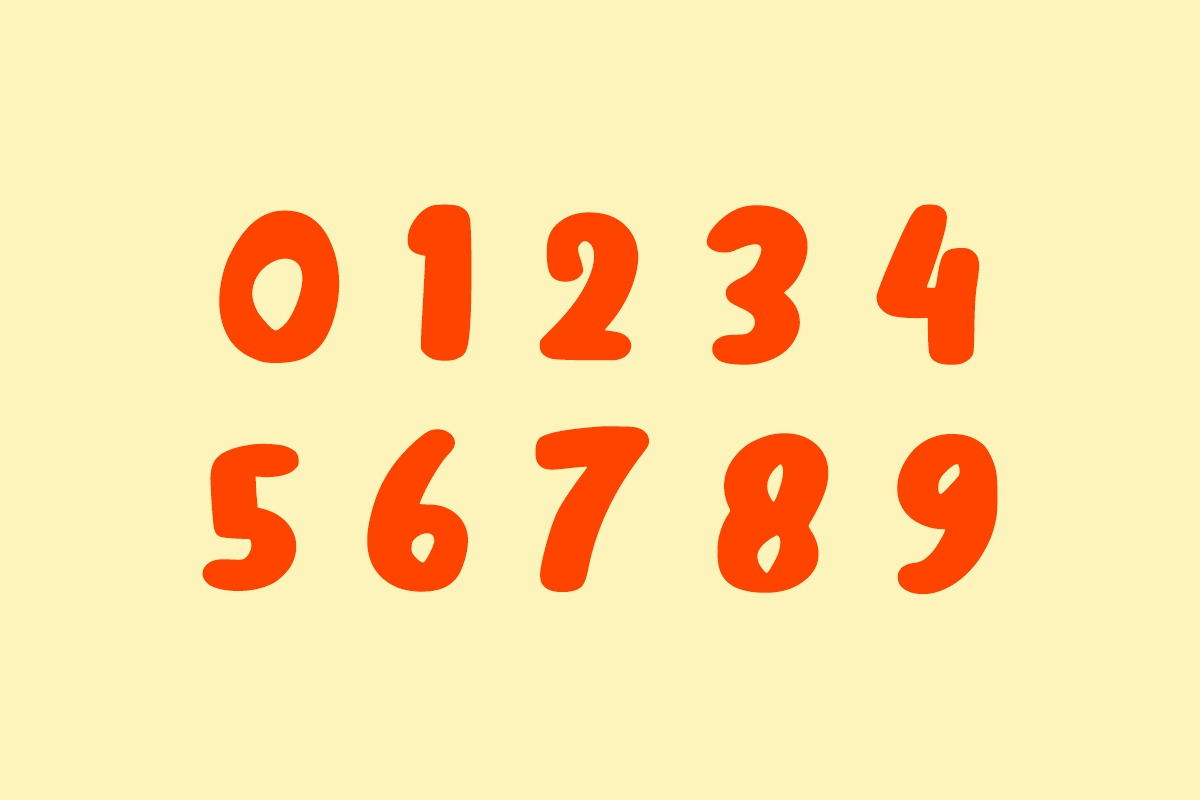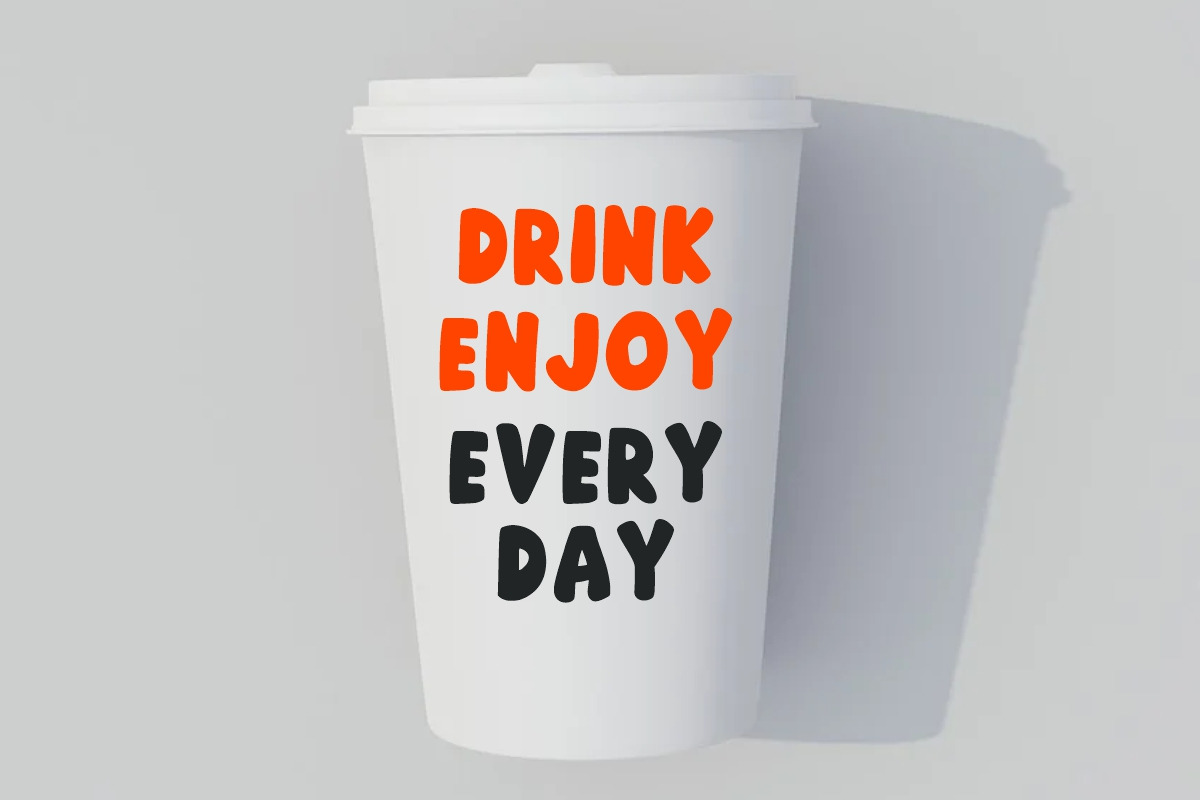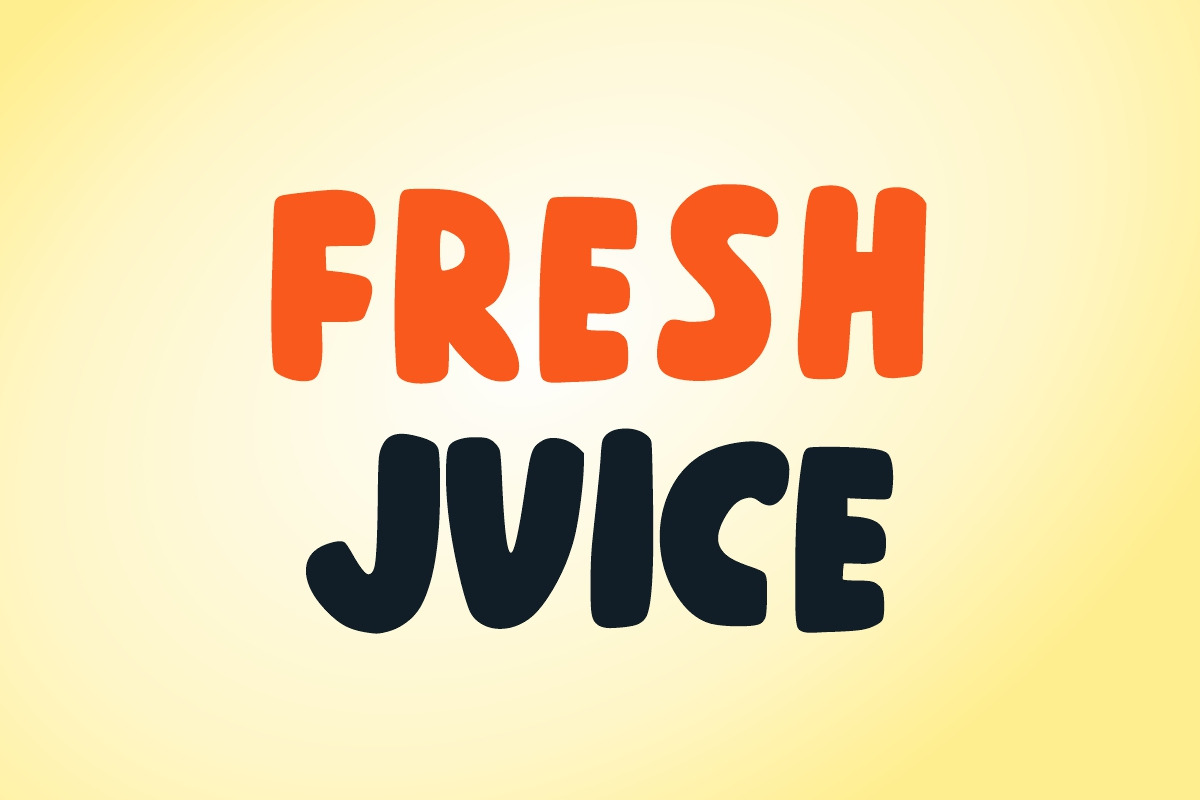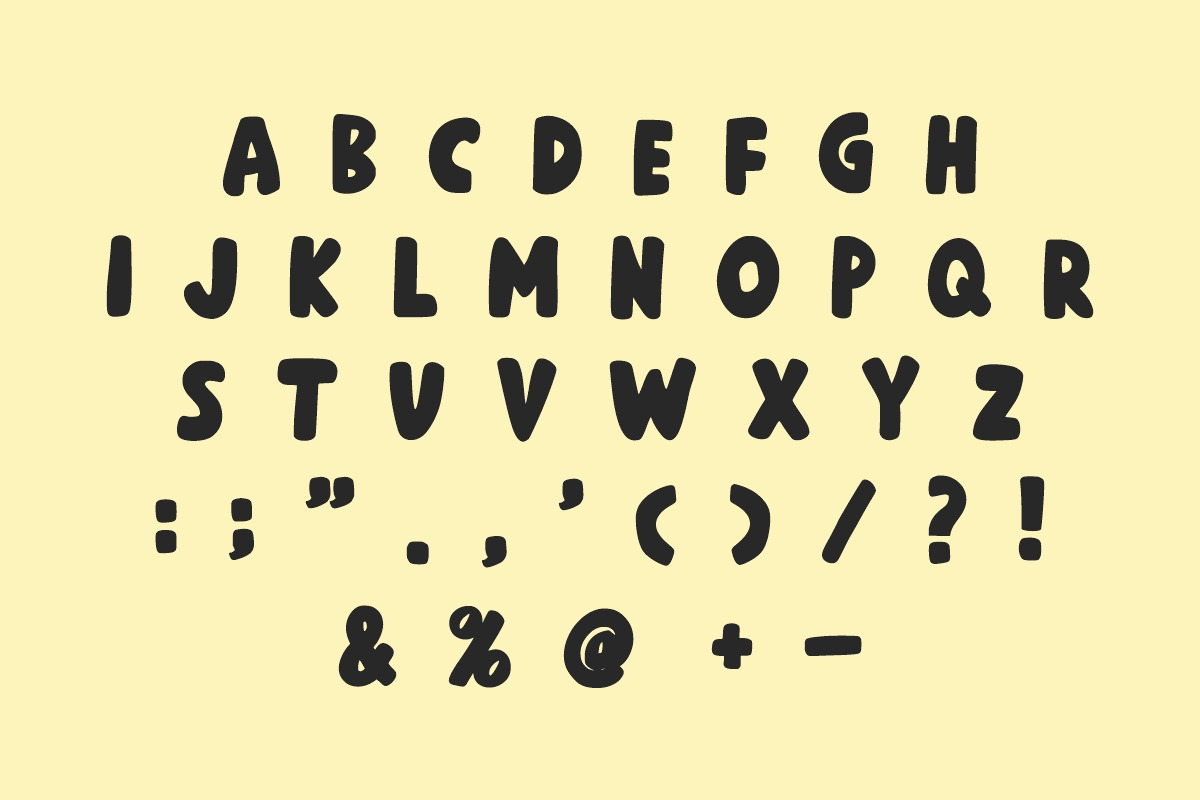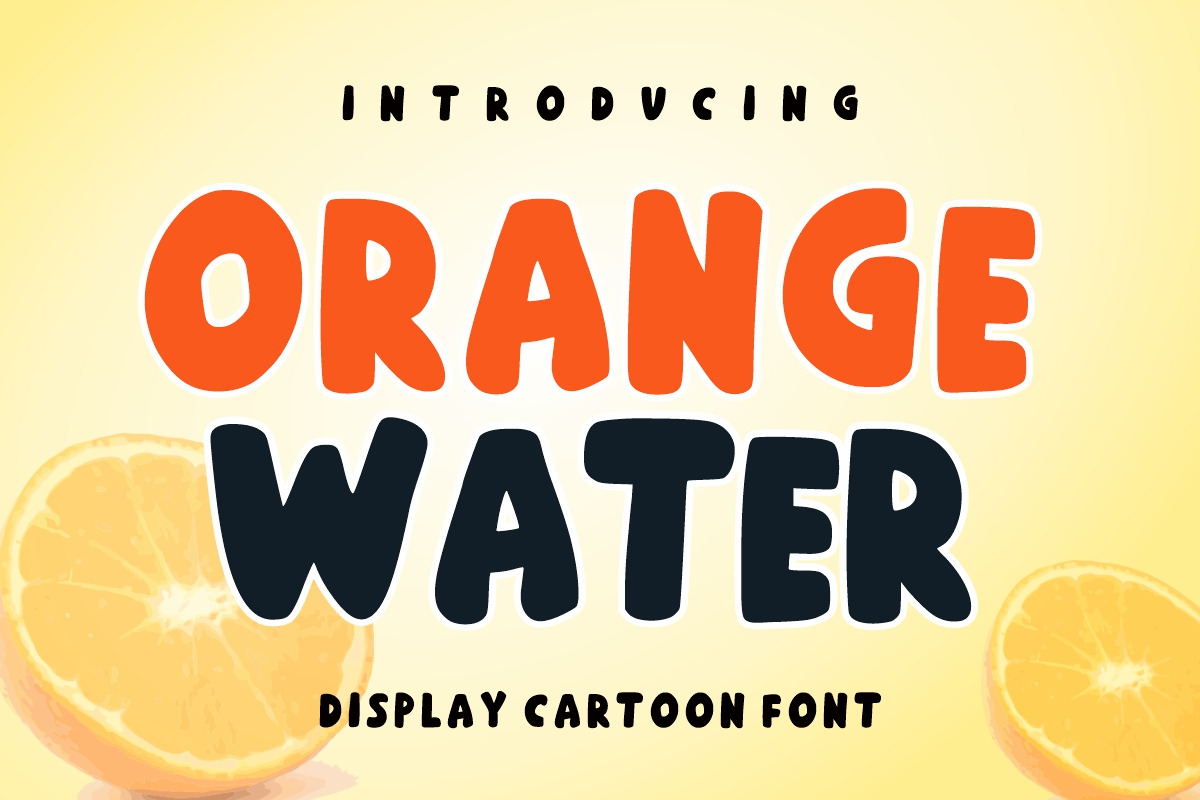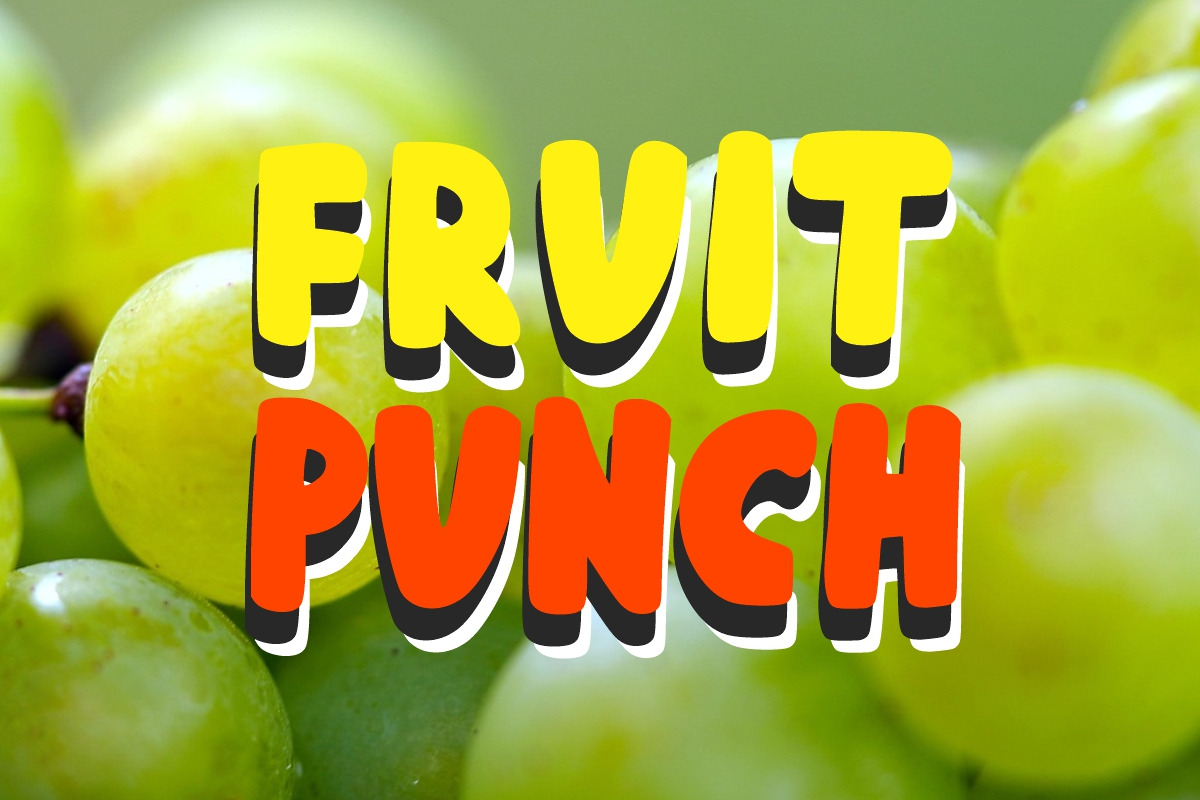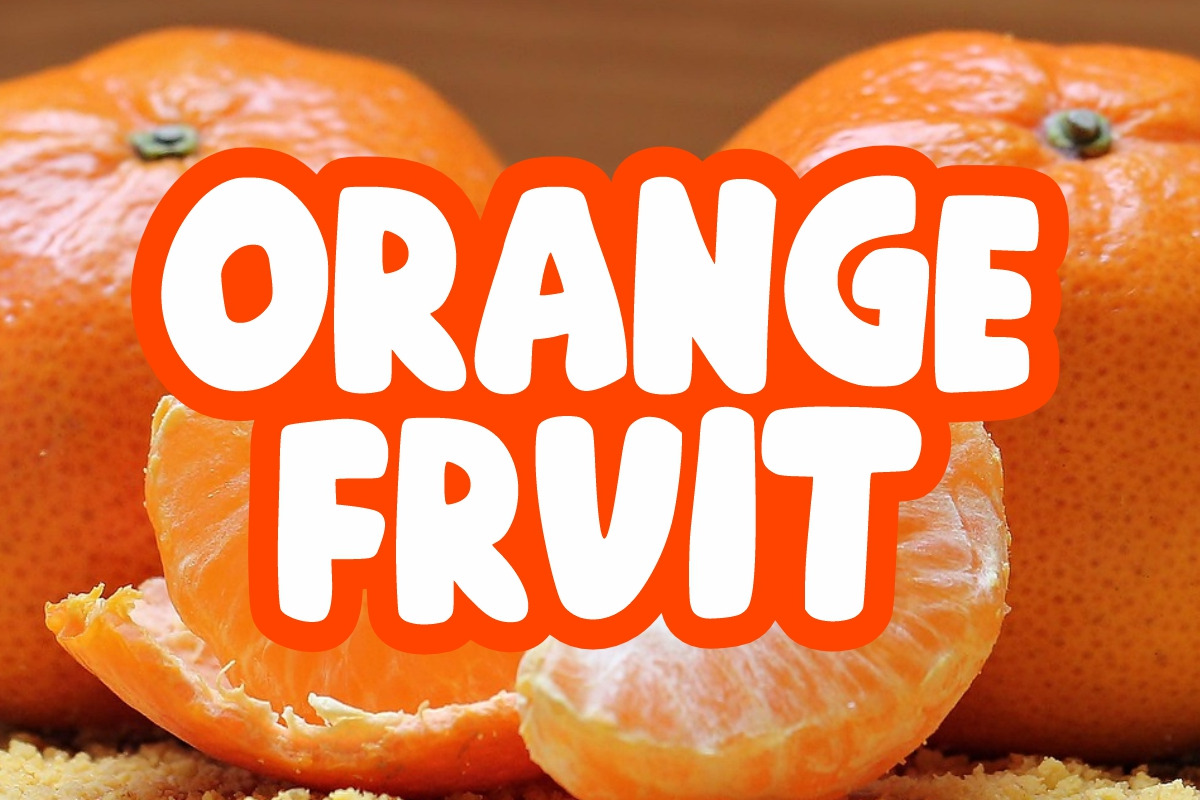
Orange Water Display Font
Orange Water is a cute, simple and friendly display font. Its informal style and casual vibe will make this font a go-to choice for each of your creations that require a relaxed touch.
It is suitable for any product packaging, invitation, quote, t-shirt, label, posters, logos that you wish to develop!